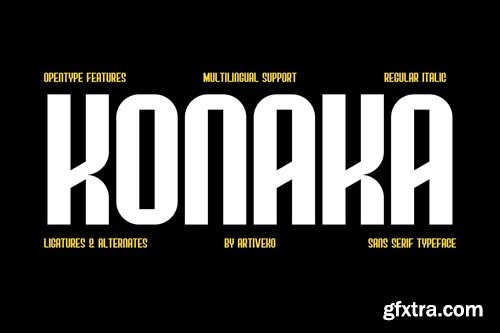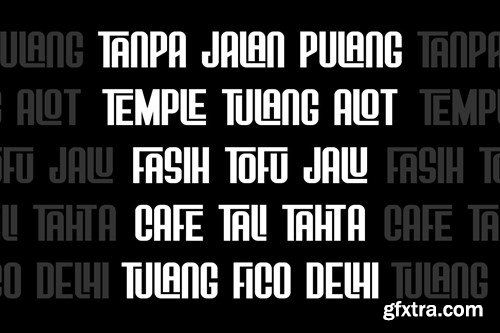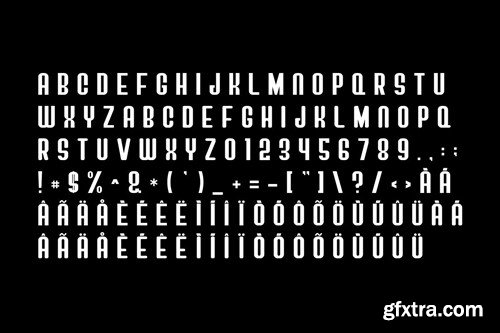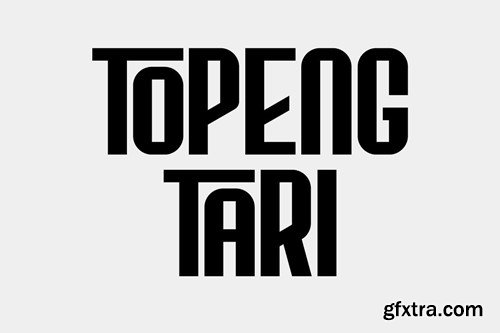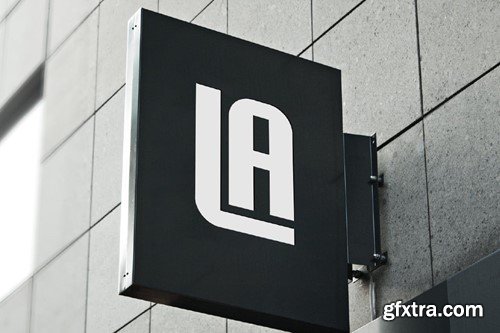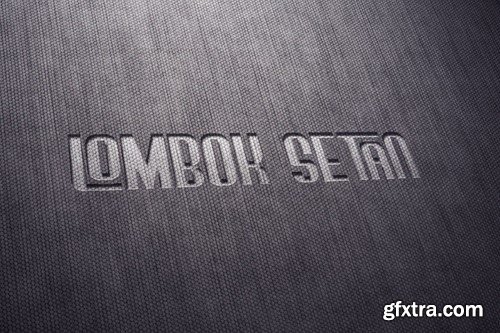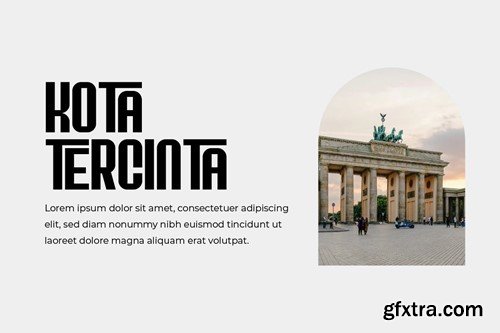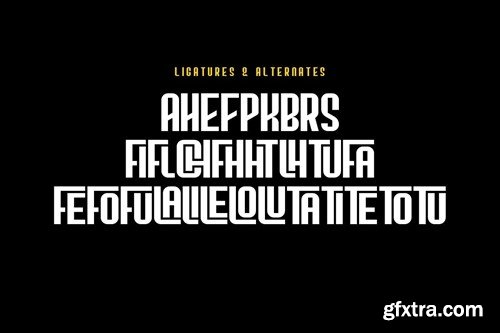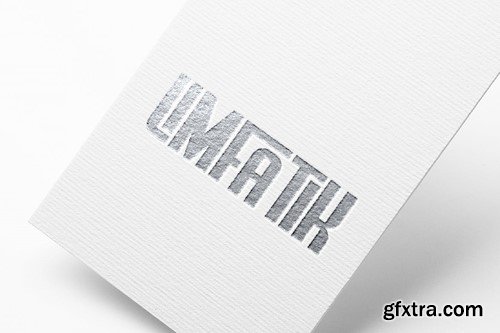
康纳卡无衬线字体 JWM5C9D
Konaka Sans Serif Font JWM5C9D
Konaka Sans Serif Font
This font is perfect for posters, social media posts, branding, personal projects, etc.